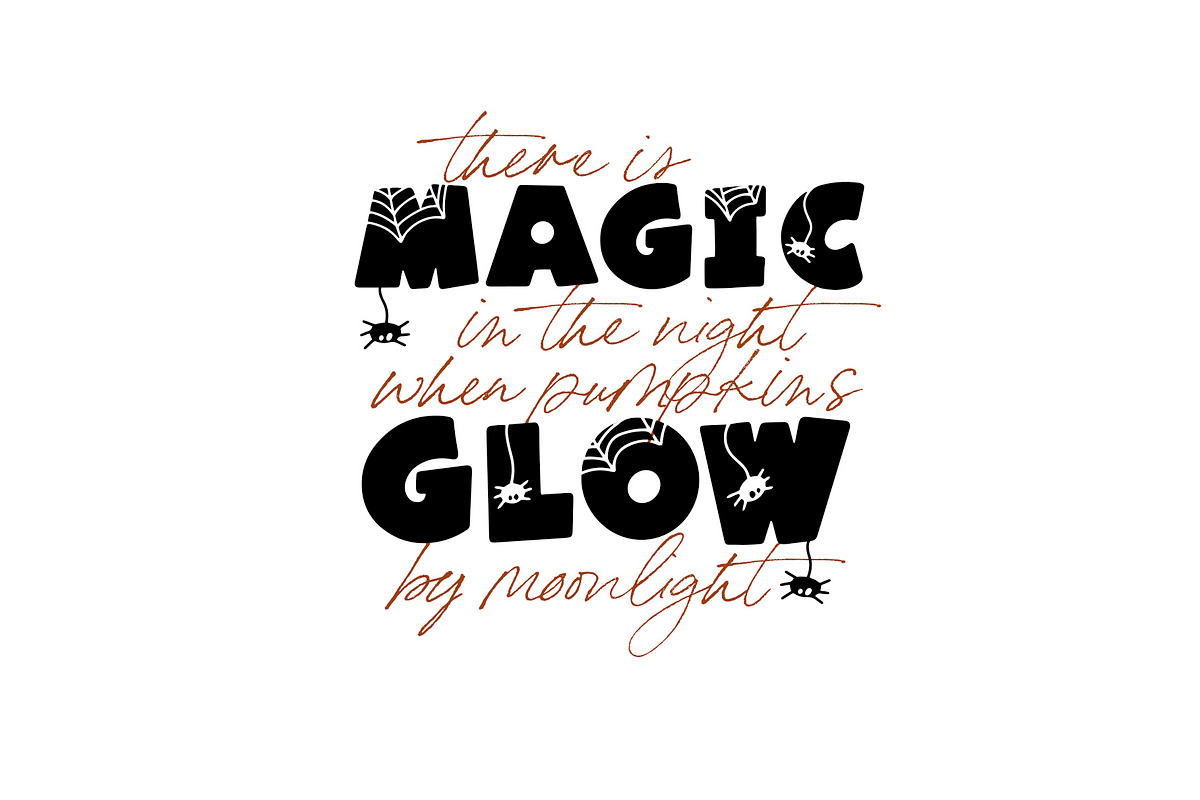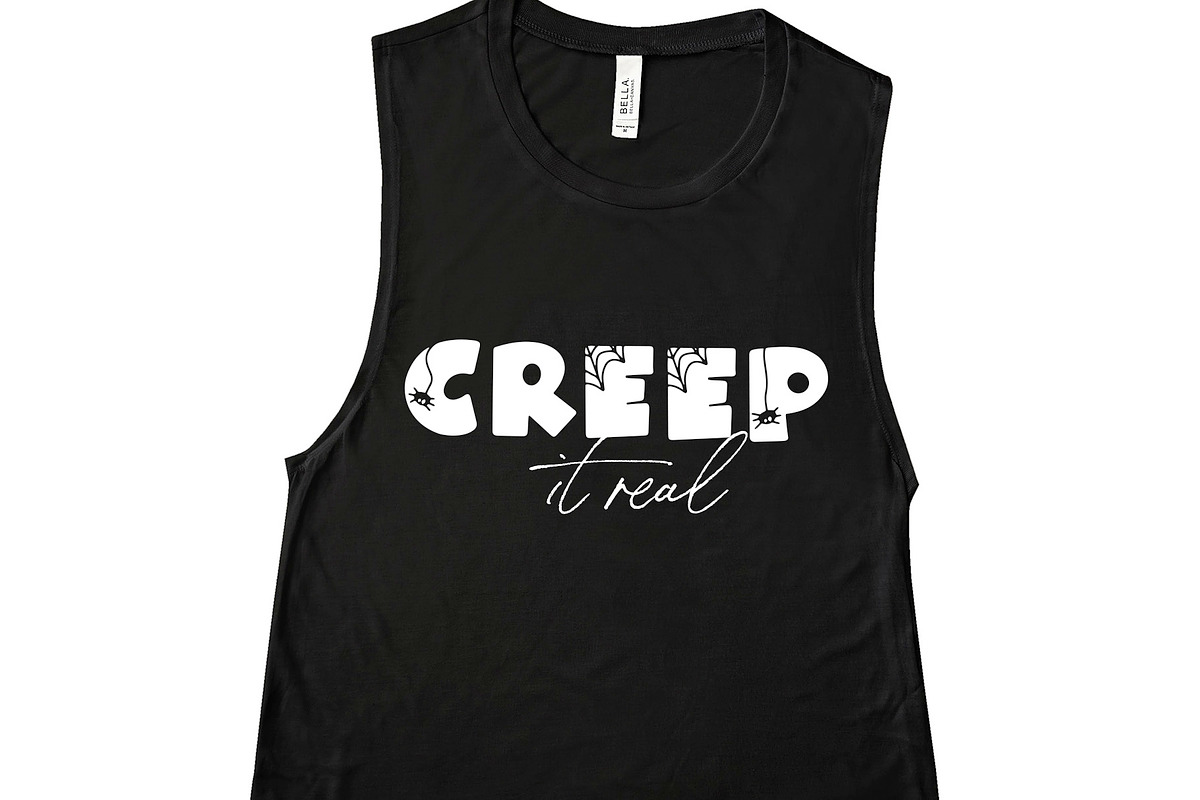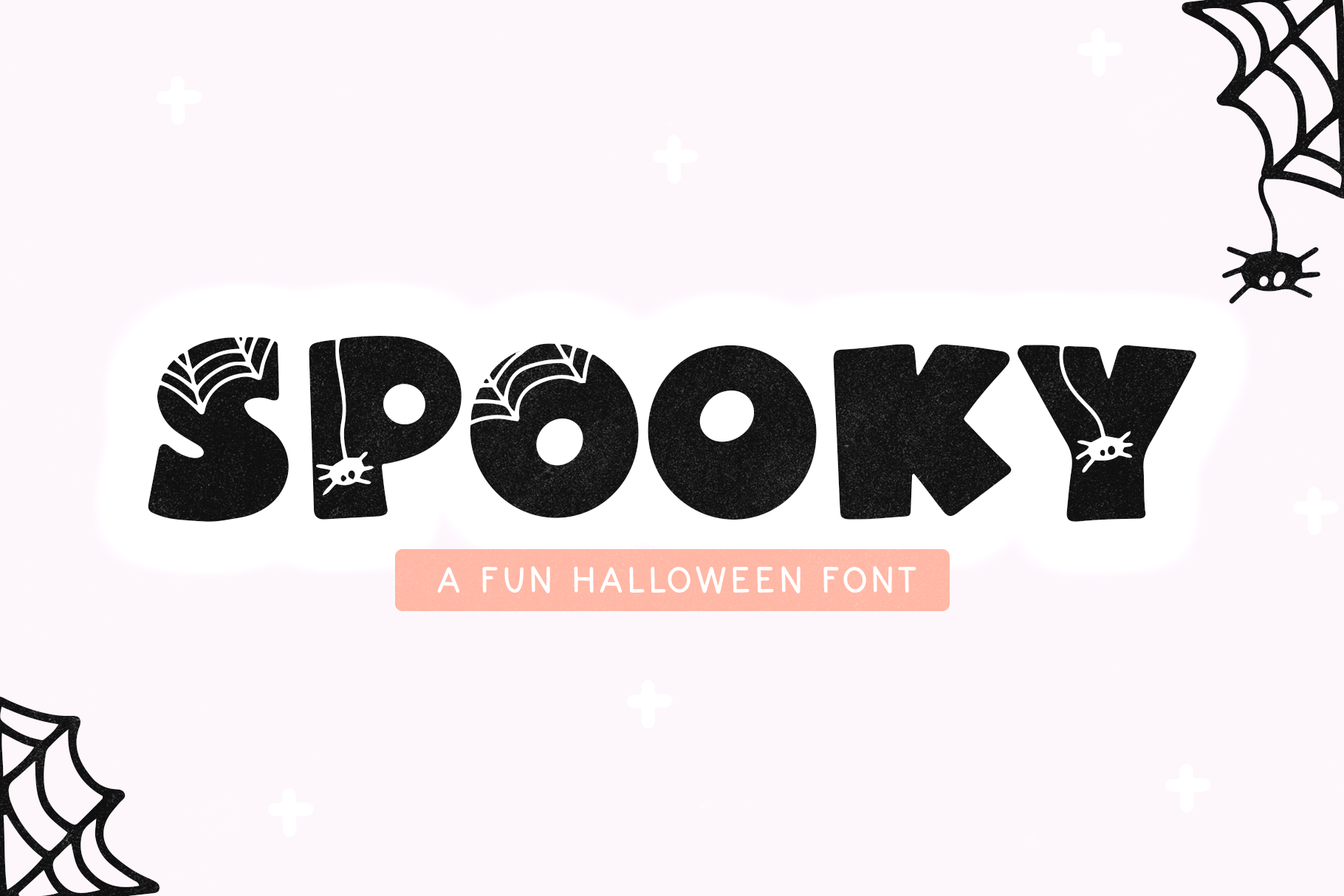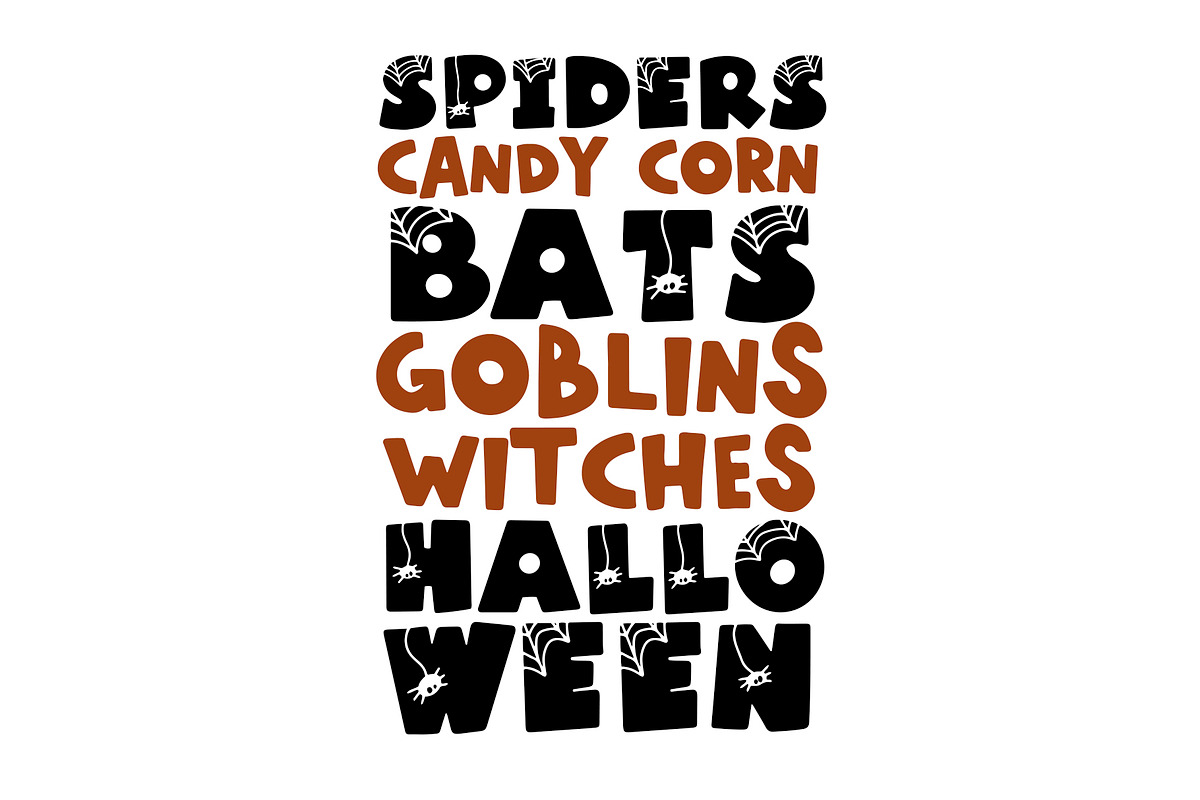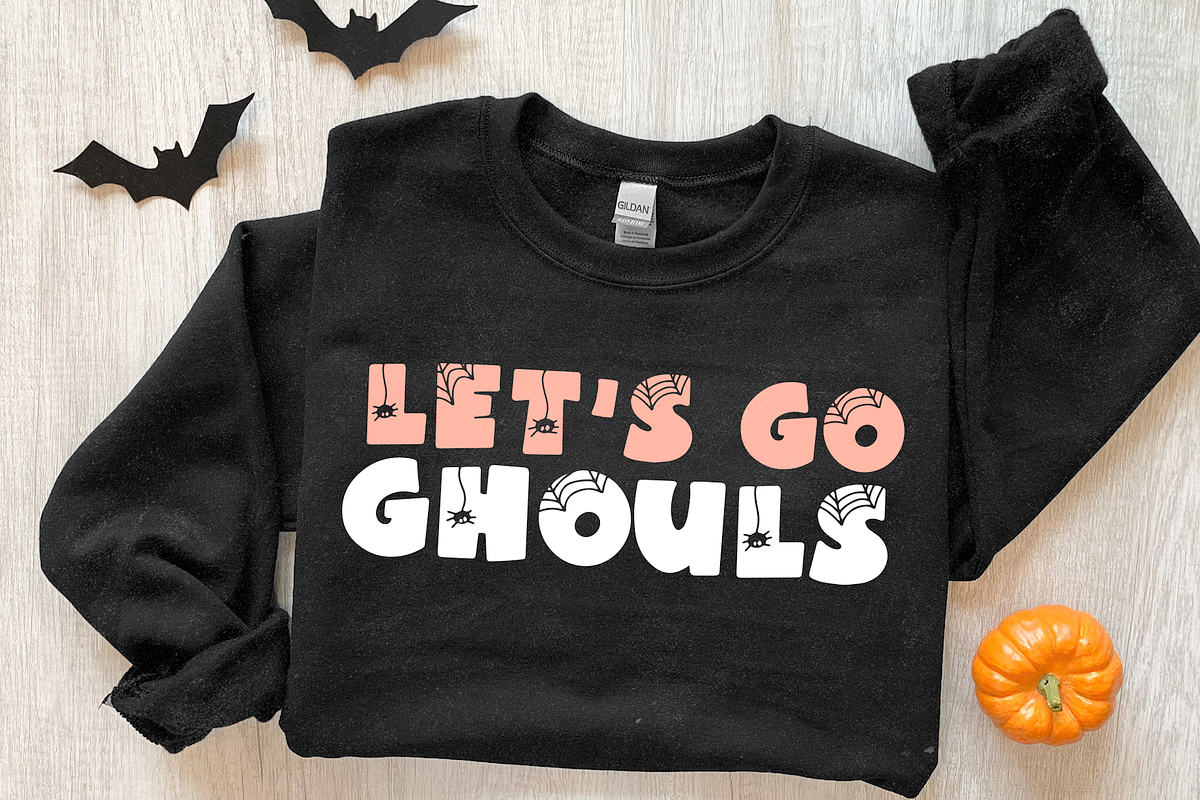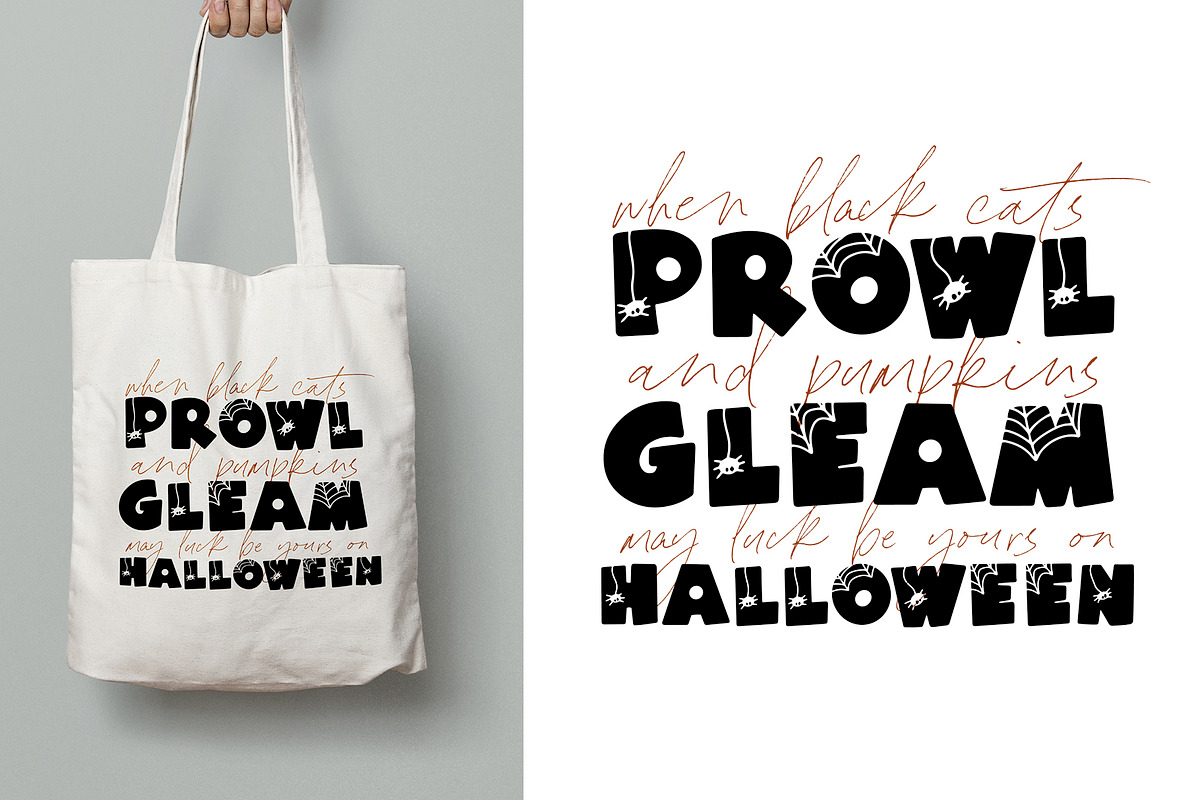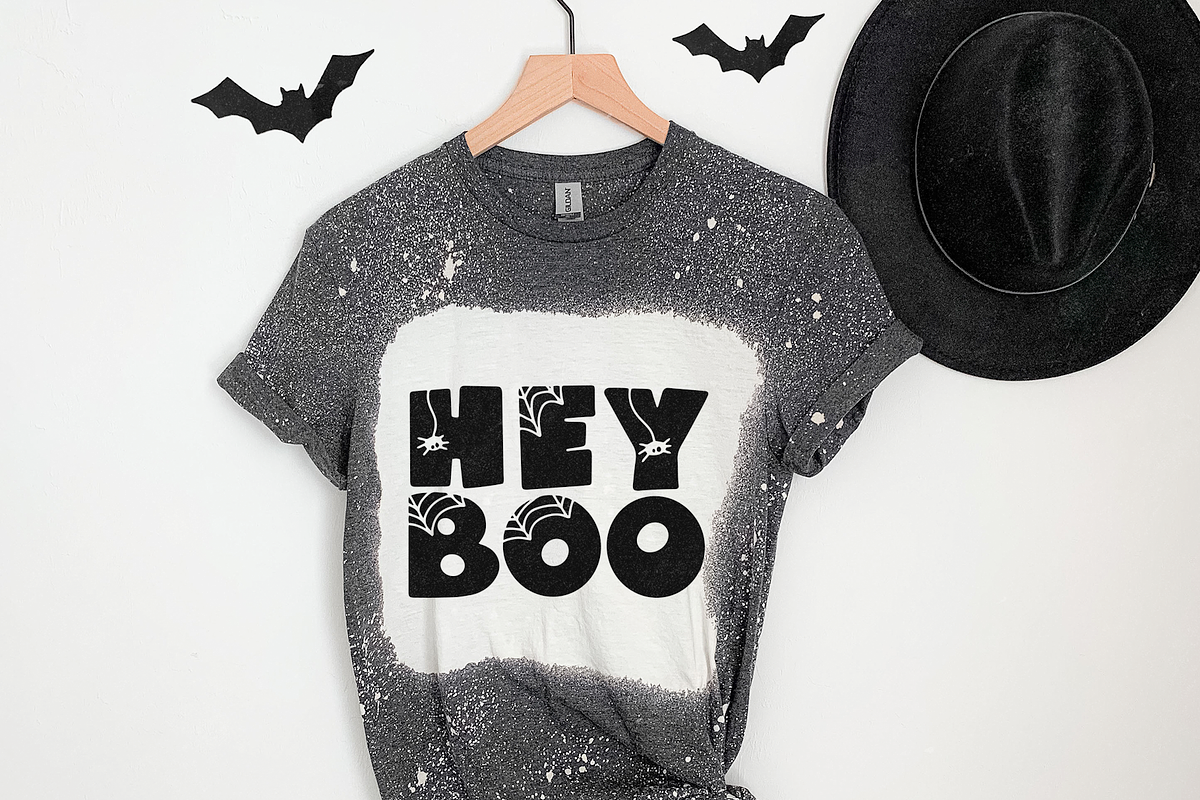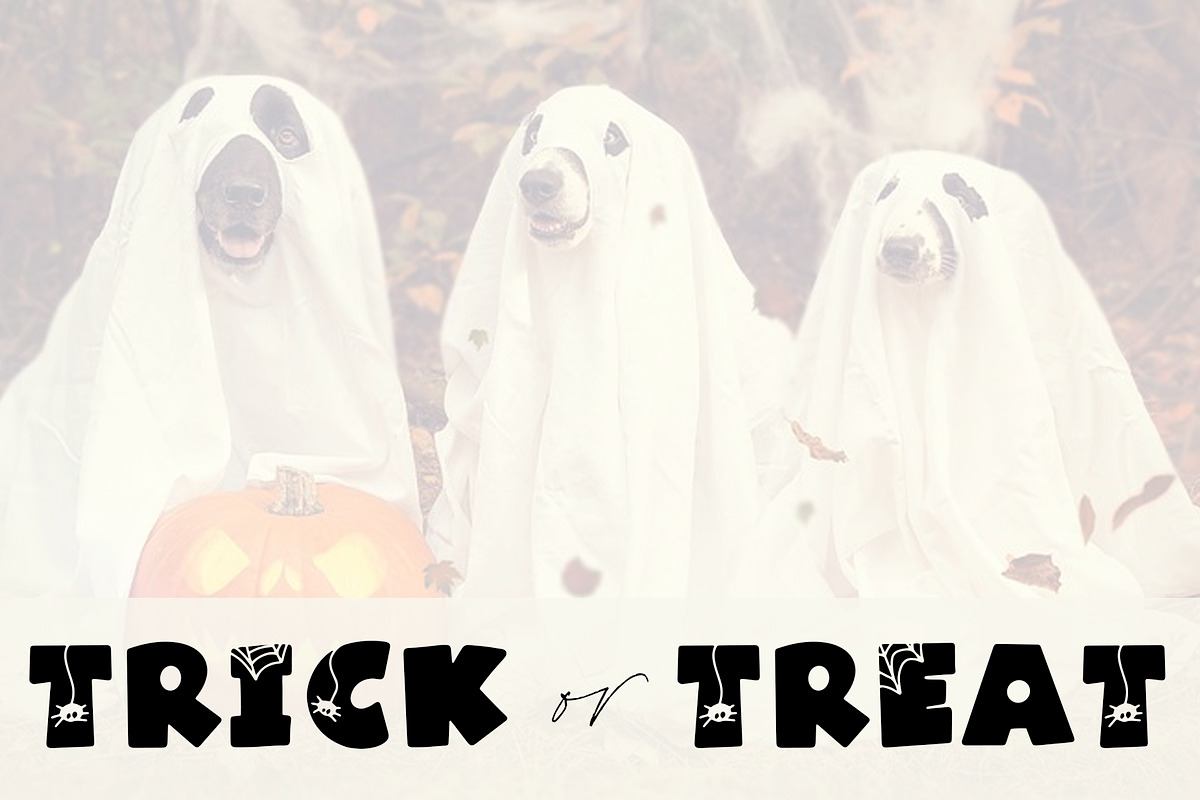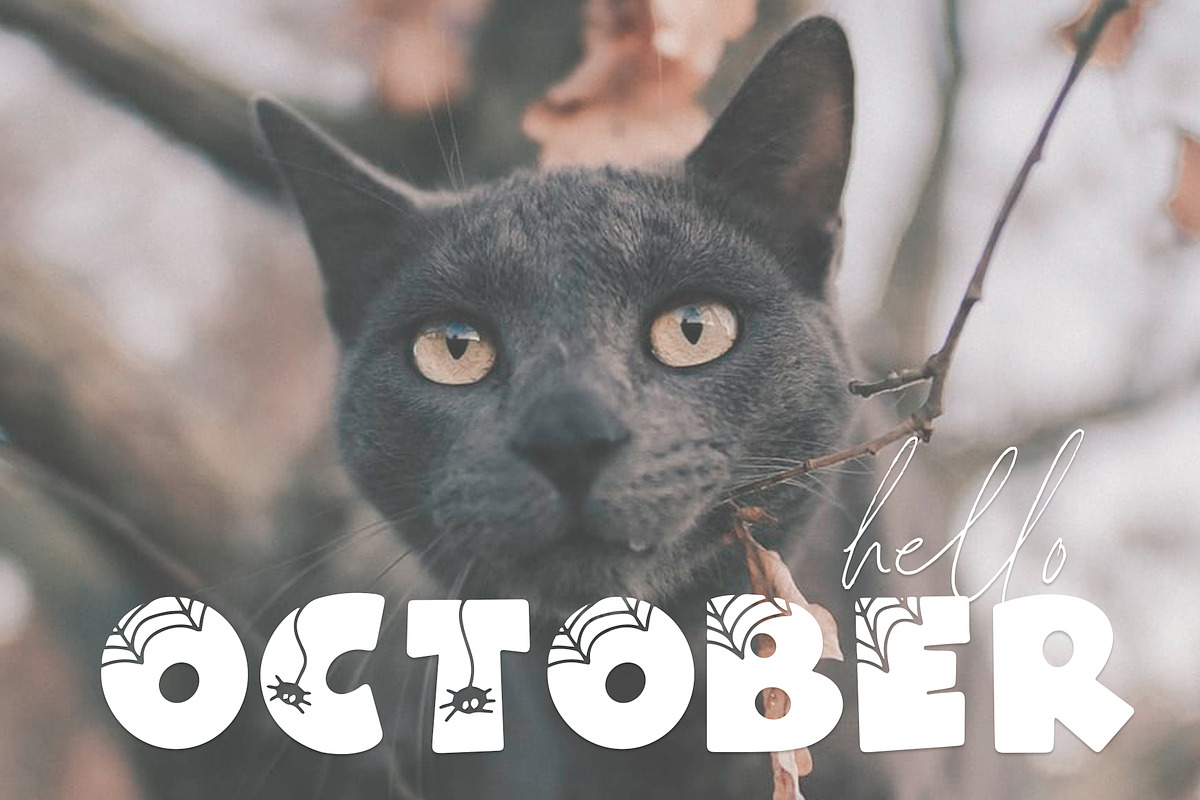
Spooky | Fun Halloween Font
Spooky is a fun halloween font!
This is an all caps font - with alternating webs/spiders in certain letters.
This font is perfect for your halloween shirts and designs, signs, invitations, social media, stickers and more!